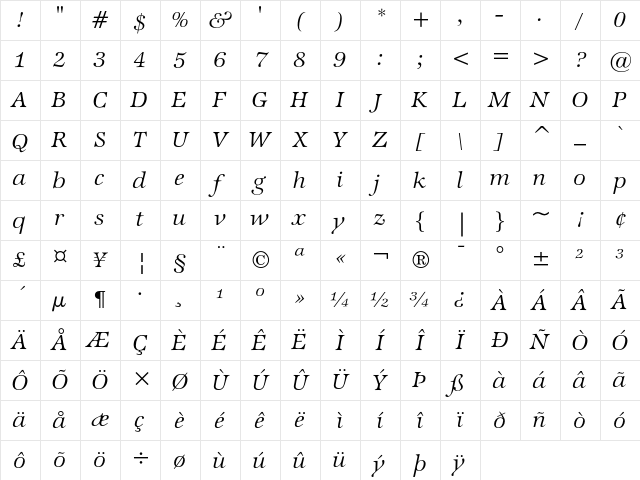
ITC Zapf International Light Italic
ITC Zapf International Family
ITC Zapf International Light Italic
Design Context for ITC Zapf International
ITC Zapf International is a composed and adaptable typeface that performs quietly and consistently across a wide range of design contexts. The slanted form adds forward momentum and visual energy. Its slender proportions lend an understated elegance to any composition.
Pro Tip: Use ITC Zapf International for emphasis, pull quotes, and subheadings where its slanted energy can add rhythm to the layout.